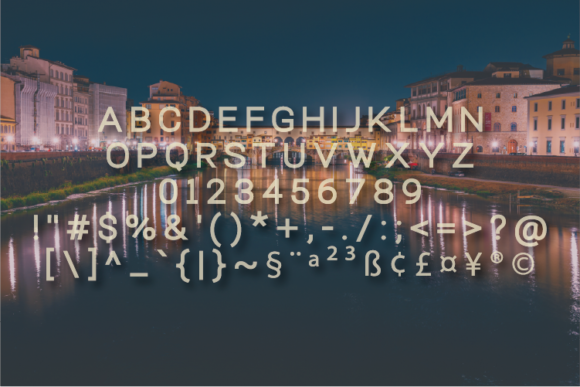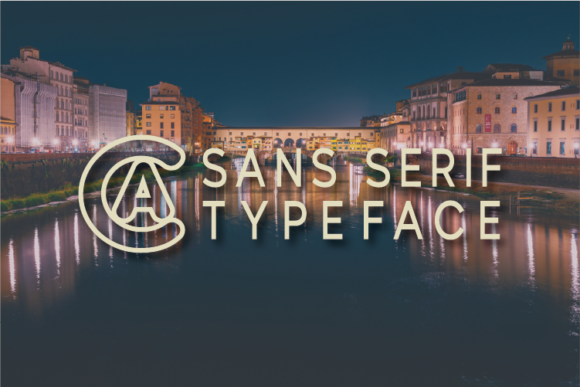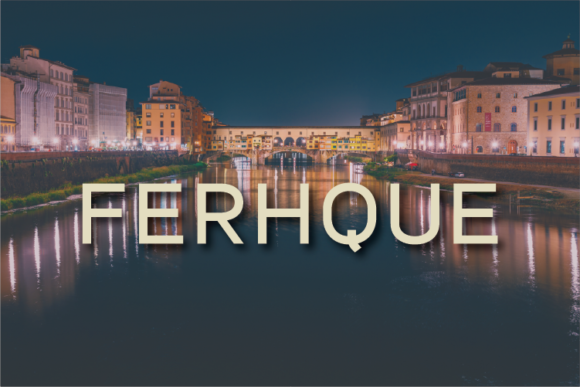
Ferhque Font: Elevate Your Designs with a Minimal and Neat Sans Serif
Are you on the hunt for a font that can effortlessly elevate your creative projects? Look no further than Ferhque, a stunning sans serif font that’s as minimal as it is neat. With its versatility and clean lines, Ferhque can be matched with an incredibly large set of projects, making it the perfect addition to your design toolkit.
The Simplicity and Elegance of Ferhque
Ferhque’s design is rooted in simplicity, making it an excellent choice for designers and crafters who appreciate clean and uncluttered typography. This sans serif font boasts a neat appearance that’s both modern and sophisticated, allowing your text to shine without any distractions. Whether you’re working on a branding project, a website, or a print material, Ferhque’s elegance will undoubtedly make your designs stand out.
One of the standout features of Ferhque is its incredible versatility. This font can seamlessly adapt to a wide range of projects, from digital platforms to print materials. Here are some ideas on how you can use Ferhque to take your designs to the next level:
• Branding: Create a lasting impression with Ferhque’s clean and modern look, perfect for logos, business cards, and letterheads.
• Web Design: Enhance your website’s typography with Ferhque, making it perfect for headings, titles, and even body text.
• Print Materials: Use Ferhque for brochures, flyers, posters, and any other print materials that require a crisp and professional look.
• Social Media Graphics: Elevate your social media presence with Ferhque, making your graphics stand out on various platforms.
Why Choose Ferhque?
With so many fonts available, why should you choose Ferhque for your projects? Here are a few compelling reasons:
• Legibility: Ferhque’s sans serif design ensures excellent legibility, making it easy for your audience to read and understand your text.
• Uniqueness: While Ferhque is simple, it’s unique enough to make your designs memorable and distinct from the competition.
Tips for Using Ferhque Effectively
To get the most out of Ferhque, consider the following tips:
• Pair it with Other Fonts: Experiment with pairing Ferhque with other fonts to create a unique and visually appealing typography.
• Play with Sizes: Use Ferhque in different sizes to create a hierarchy of information and add depth to your designs.
• Customize: Don’t be afraid to experiment with different colors, weights, and styles to make Ferhque truly yours.
Ferhque is more than just a font – it’s a design solution that can elevate your creative projects to new heights. Its minimal and neat sans serif design makes it incredibly versatile, allowing you to use it across a wide range of projects. With Ferhque, you can add a touch of elegance and sophistication to your designs, making them stand out in a crowded creative landscape. So why wait? Add Ferhque to your design toolkit today and discover the difference it can make!